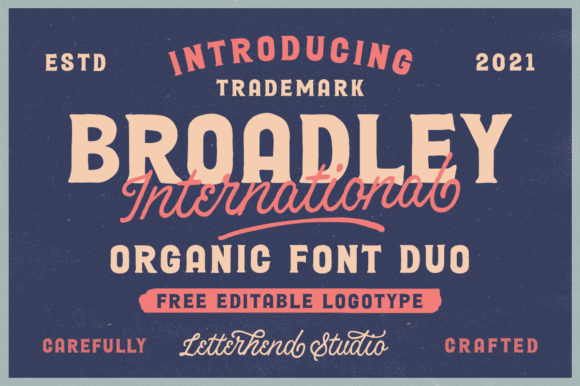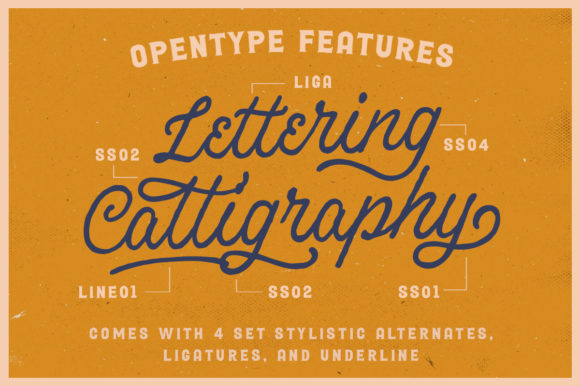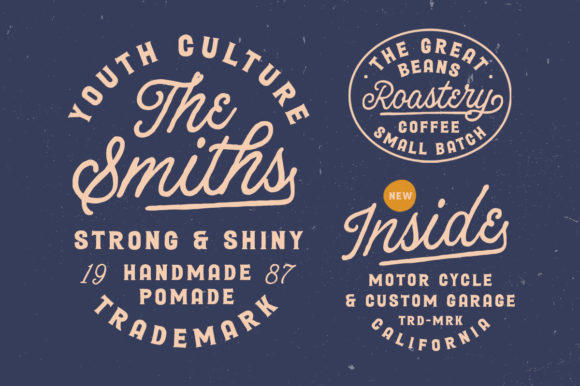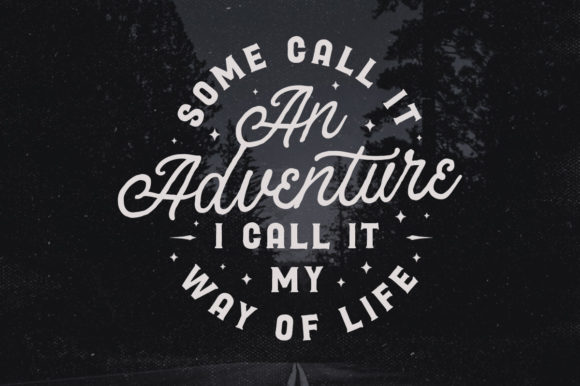
Broadley Font
About the Broadley Font
We are excited to introduce Broadley Font, a must-have typeface for any serious designer. Broadley feels playfully nostalgic and delivers an incredible vintage aesthetic. Use this duo font to add that special retro touch to any design idea you can think of!
Broadley’s playful vintage aesthetic makes it ideal for projects requiring a retro feel, such as branding for vintage shops, posters for retro-themed events, or packaging for products aiming for a nostalgic appeal. Headlines and short text blocks benefit most from its charm; however, its decorative nature makes it unsuitable for body text or UI elements requiring high readability.
Its whimsical personality pairs well with clean sans-serif fonts like Helvetica or Open Sans for a balanced contrast. For a more cohesive vintage feel, consider pairing it with a serif font possessing a similar weight and slightly more formal style, such as Garamond or Playfair Display. Avoid pairing it with overly geometric or modern sans-serif fonts, as this might clash with its organic, nostalgic character.
Broadley exudes a friendly, approachable boldness, making it perfect for brands targeting a younger demographic or those seeking a fun, light-hearted image. Remember to always prioritize readability when incorporating it into a design.
Broadley Font Usage Examples
Broadley Font Example